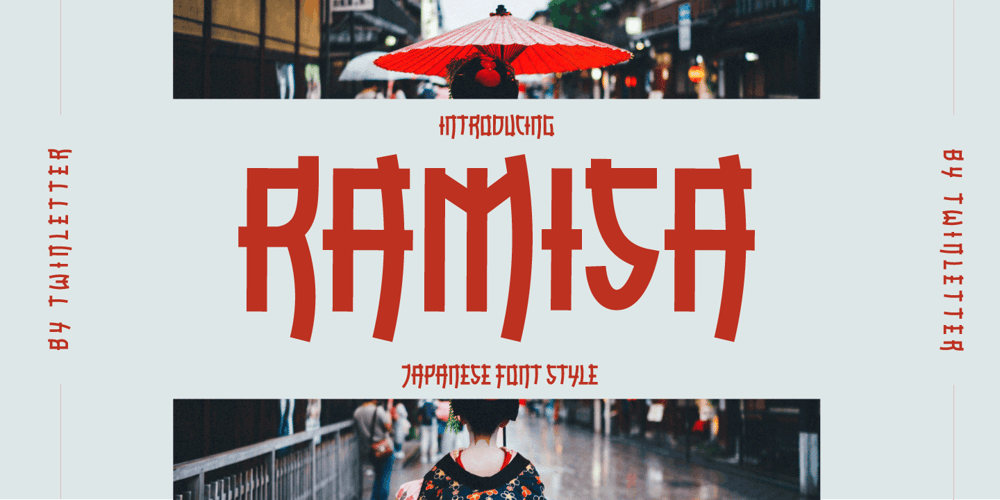
Ramisa Faux Font Family was designed by Rozikan and published by Twinletter. Ramisa Faux contains 1 styles and family package options. Ramisa is a Japanese-style font that is designed as uniquely as possible to create a beautiful and easy-to-read combination of sentences. Of course, this font is also very flexible for you to use in your various projects, ensuring that your project has a fantastic and appealing appearance that will be remembered by all audiences.Logotypes, food banners, branding, brochure, posters, movie titles, book titles, quotes, and more may all benefit from this font.Of course, using this font in your various design projects will make them excellent and outstanding; many viewers are drawn to the striking and unusual graphic display.Start utilizing this typeface in your projects to make them stand out.